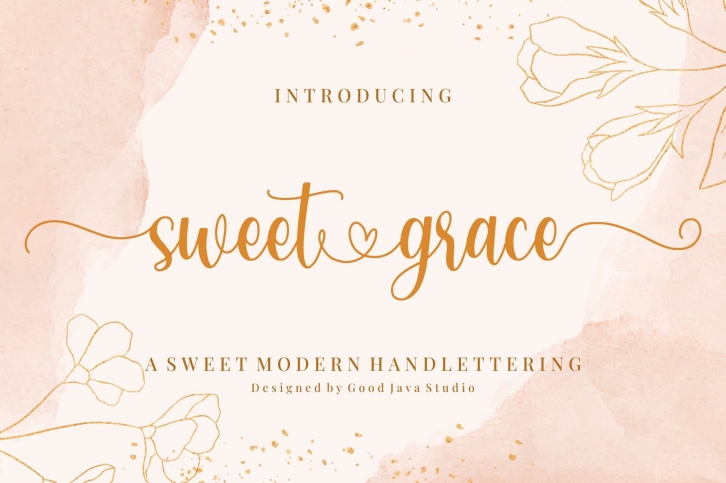
Introducing Sweet Grace
Sweet Grace - with Sweet Swashes is romantic script font make with many swashes in start and ending character. Make a beautiful style heart with swash. This font includes full set of swash heart lowercase letters, numerals, and punctuation. Also it includes: - short lowercase beginning and ending swashes - lowercase ending heart swashes, which serve to connect two words or letters. This is so perfect for invitations, monograms, wedding, fashion, branding, label. or logotype.
- Opentype Features (SS01 until SS06 and Ligature)
- Very great for branding, logotype, handletteing, invitations, or fashion branding.